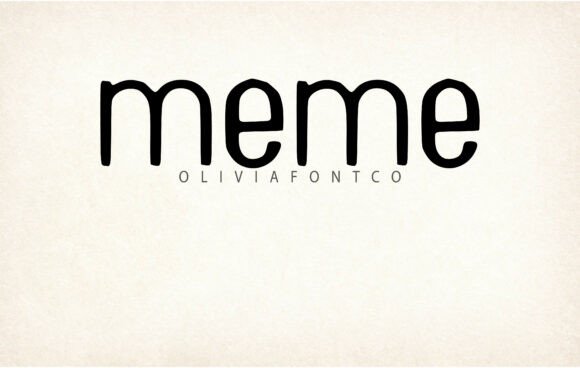
Meme Font Free Download Script Fonts: In today’s world of fast-moving trends, memes have become more than just jokes — they’re a way of communicating ideas, emotions, and cultural moments. To match that energy, Meme Font was designed as a typeface that captures creativity, clarity, and modern versatility. Whether you’re creating digital content, designing for print, or working on branding projects, Meme Font offers a clean yet stylish solution that adapts to almost any design need.
What is Meme Font?
Meme Font is a contemporary sans serif font that strikes the balance between playfulness and professionalism. Its letterforms are carefully crafted to remain highly legible, even when scaled down or used in bold, eye-catching titles. Unlike overly decorative fonts, Meme stays simple and impactful, making it versatile for both casual and formal designs.
From magazine covers and t-shirt slogans to social media graphics and branding projects, this font has earned a reputation for being a “chameleon font” — one that blends seamlessly into multiple creative contexts without losing its personality.
Key Features of Meme Font
Meme Font isn’t just another typeface. It’s designed with unique characteristics that make it a favorite among designers:
Legible at Any Size – Works well as both a headline font and a body text font.
Balanced Structure – The clean lines and even proportions create harmony in layouts.
Versatility – Perfect for both print and digital projects, from posters to Instagram stories.
Stylish Yet Simple – Professional enough for branding, yet casual enough for memes or lighthearted designs.
Global Appeal – Works across different cultures and content styles, from entertainment to corporate.
Why Use Meme Font?
Fonts aren’t just about looks; they shape how people perceive your content. Meme Font is popular because it:
Adds Modern Flair – It instantly makes a design look contemporary.
Boosts Readability – Its clarity ensures your message gets across without effort.
Fits Multiple Niches – Fashion, lifestyle, gaming, business — Meme Font adapts to all.
Strengthens Branding – With a professional but approachable vibe, it’s great for logos and brand identities.
Works for Trends – Perfect for meme creators, influencers, and social media marketers who need fonts that grab attention.
Best Use Cases for Meme Font
Meme Font is the type of design tool that you’ll find yourself reaching for again and again. Here’s where it shines:
1. Social Media Graphics
Memes, motivational quotes, or brand announcements — Meme Font ensures your text looks sharp and engaging across platforms.
2. T-Shirts and Merchandise
Simple fonts work best on apparel. Meme’s clean structure makes it easy to read, even from a distance.
3. Magazine Headlines
With its bold presence, Meme Font is a natural choice for editorial layouts and eye-catching titles.
4. Logos & Branding
Brands need fonts that balance personality and professionalism. Meme delivers a strong visual identity without overwhelming the logo.
5. Wedding Invitations & Greeting Cards
Though modern, Meme Font’s simplicity works beautifully in minimal, elegant card designs.
6. Websites & Blogs
Readable body text is crucial for websites. Meme Font can serve as a main text font without straining the eyes.
Design Tips for Using Meme Font
Pair Smartly – Combine Meme with a handwritten or decorative font for contrast.
Use White Space – Its clean style thrives in minimal layouts.
Color Choice Matters – Bold colors emphasize its modern vibe, while muted tones give it a refined look.
Test in Context – Try it across different devices to ensure consistent readability.
Final Thoughts
Meme Font is more than just a typeface — it’s a tool for creativity. From memes to magazines, from t-shirts to wedding invitations, it offers a flexible solution for designers who need something clear, modern, and full of personality.